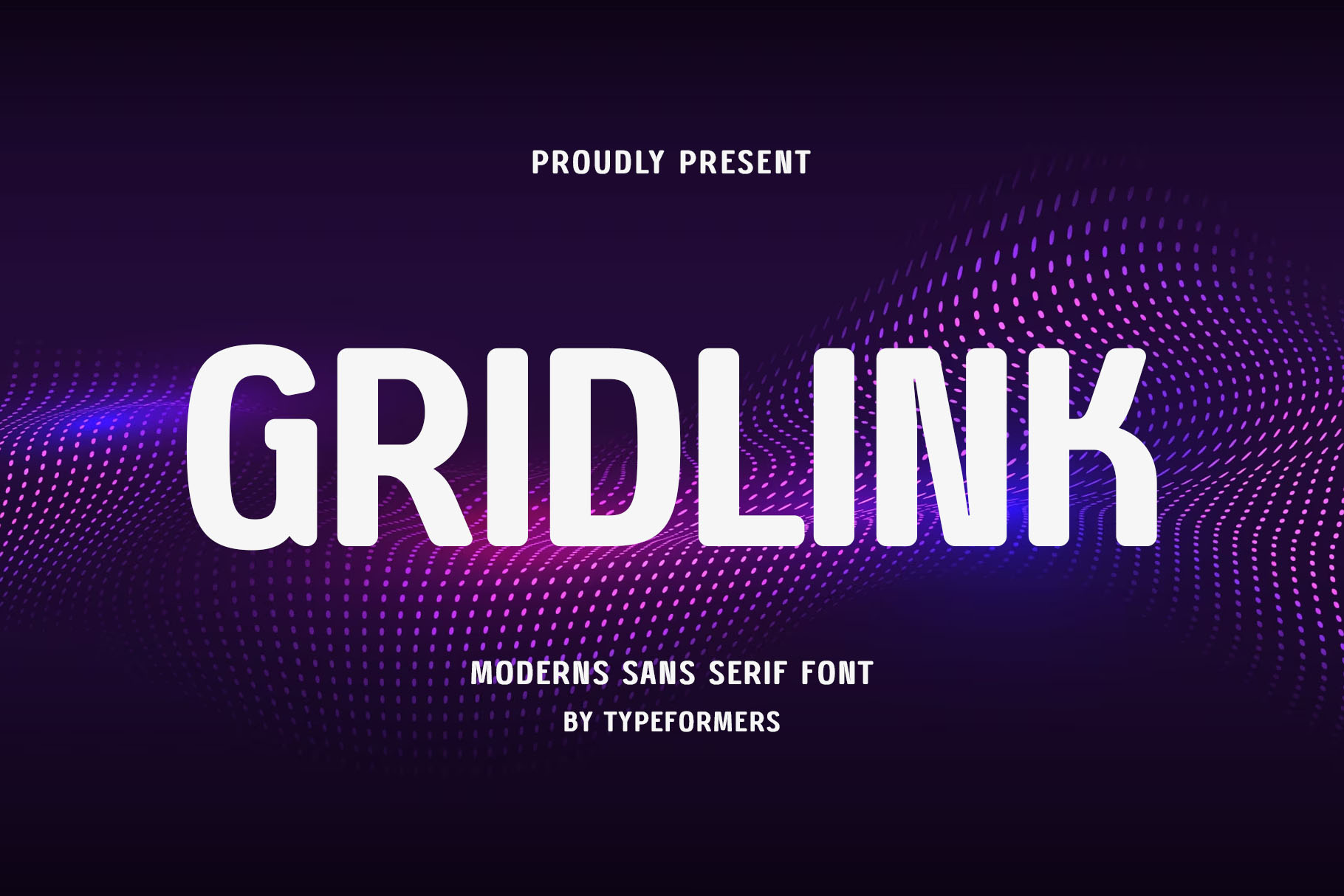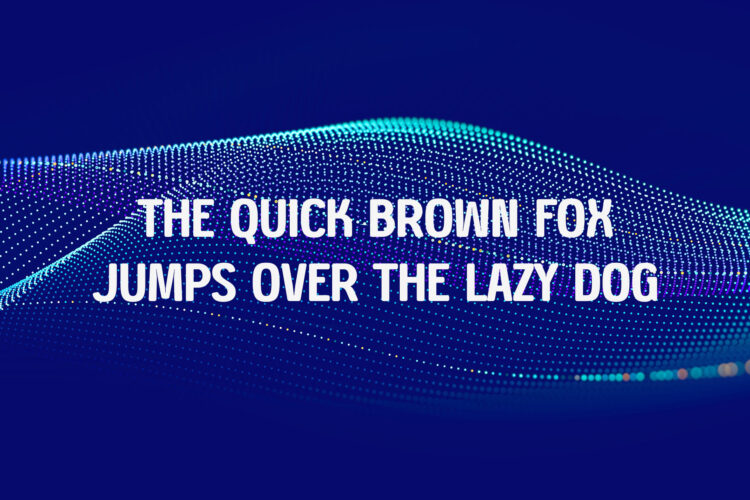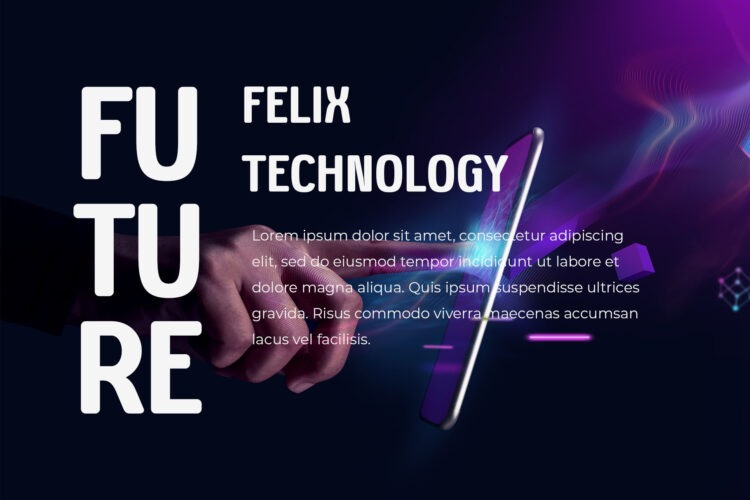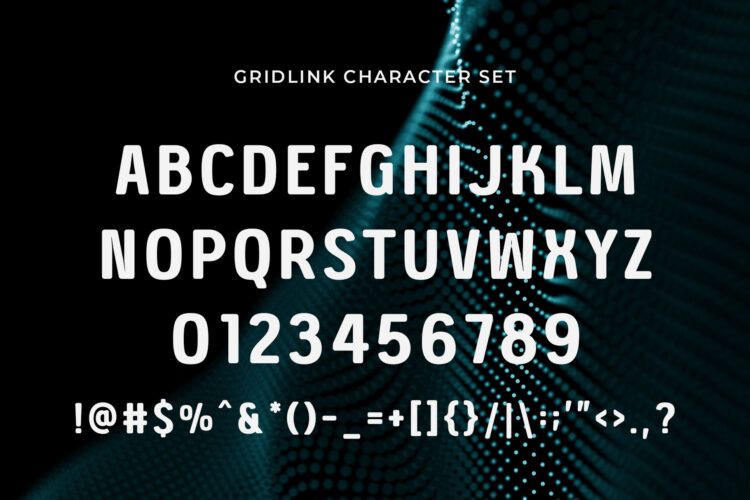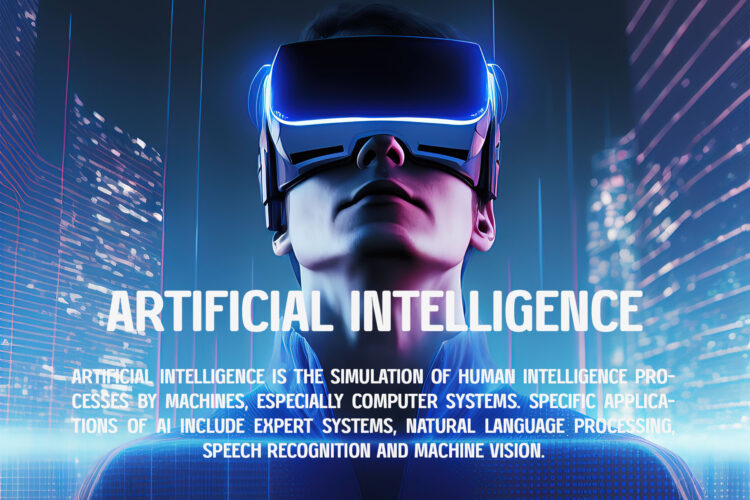
Introducing Gridlink – Modern Sans Serif.
Gridlink is a modern and simple font, best used as a display for headings, logos, branding, magazines, product packaging and invitations.